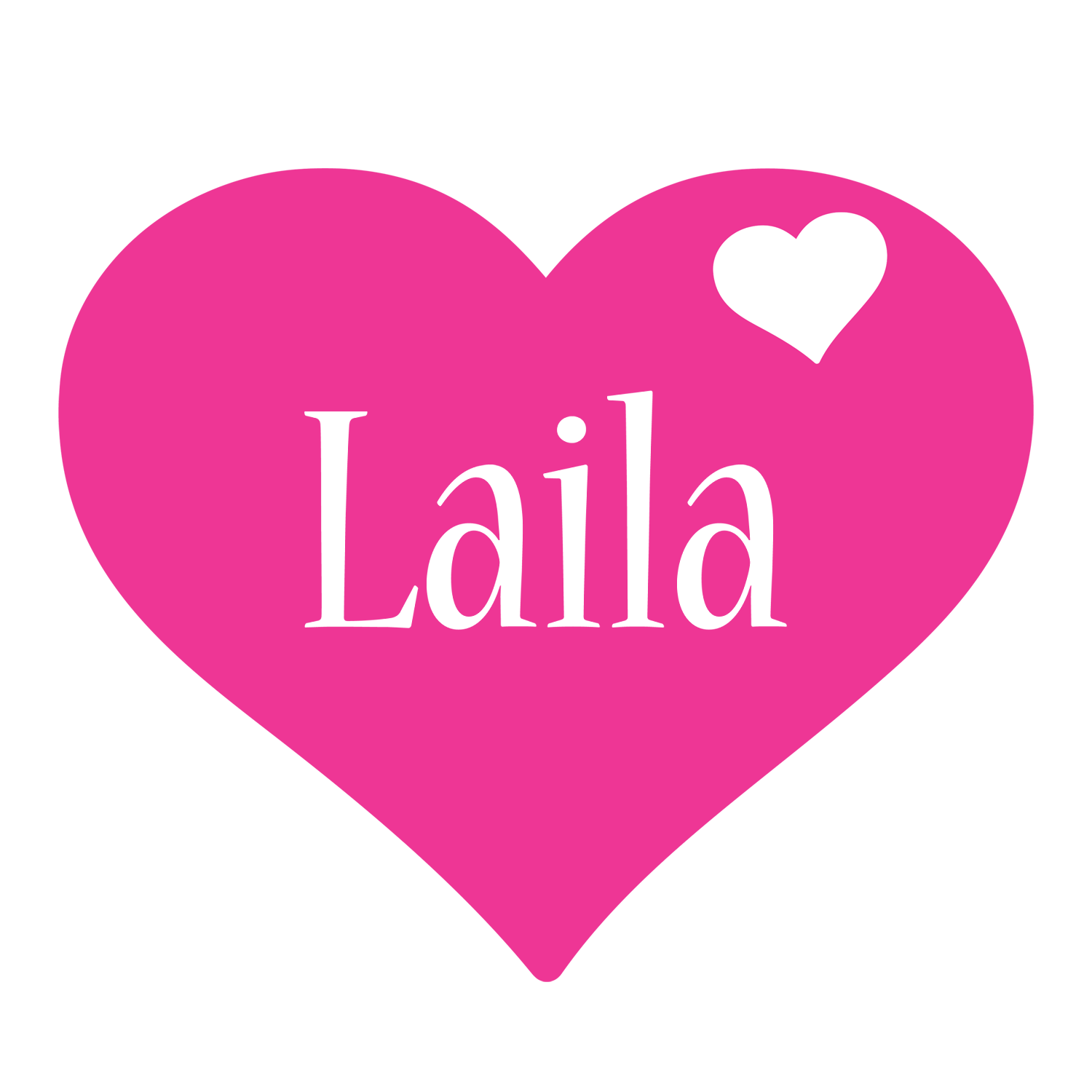
Cute Girly Font Generator
No download or any special software is required. Girly love script is modern handwritten calligraphy typeface with dancing up and down the baseline.
Cute girly font generator. The last step is to try out your favorites in the girly tattoo font generator. We have 48 free cute girly handwriting fonts to offer for direct downloading 1001 fonts is your favorite site for free fonts since 2001. Kawaii is a japanese term which basically means something cute.
Click to find the best 936 free fonts in the cute girly style. Cute girly fonts are characterized by big and stylized scripts that have a distinct appeal in case of teenage girls. This font is such a bubbly, fun script.
Just enter your letters and words in the box below, choose your girly letter font and color / size options, and click on the generate girly letter button below. Simply type or copy the normal text into the blank text field. The text generator section features simple tools that let you create graphics with fonts of different styles as well as various text effects.
The girly text maker is a free online letter generator program so you can create your own cool girly letters with your custom text. Girly fonts are famous for its sweet look. Brandcrowd has hundreds of girly logos that you can customized in just a few clicks.
A there is nothing like girly or boyish in fonts but cute fonts are one of the favorite fonts among the girls. The most beautiful and pretty fonts from our catalog, perfect for any occasion or event. How to have girly handwriting.
This cute fonts generator can change the alphabets you put to some of those different shaped and styled ones. The font collection section is the place where you can browse, filter, custom. Ready to personalize and share in facebook and twitter.
The cute, kawaii and dolliecrave symbols generator is an ideal website for people who love to play around and. Girly fonts are famous for its sweet look. It is a free online letter generator program so you can create your own cool girly letters with your custom text.
Cute fonts are also known as kawaii fonts. Browse the library of professionally designed girly logos. I promise that you have something you like, try it.
Cute letters designed by german type designer harald geisler is a hand drawn font family available in two styles, cute letters hearted and the cute letters heartless. You can try the girly logo maker for free! The cute fonts generator helps users break away from the generic font choices out there and choose a font that would better be able to convey themselves.
Beautiful & cute font generator. 1001 free fonts offers the best selection of girly fonts for windows and macintosh. And you will find cute aesthetic fonts for your writing.
So, yes this is perfect for a girl to use. We have 73 free handwritten girly handwriting fonts to offer for direct downloading 1001 fonts is your favorite site for free fonts since 2001. Find a design you love and change the colors, font and layout.
The text generator section features simple tools that let you create graphics with fonts of different styles as well as various text effects; Cute girly fonts are characterized by big and stylized scripts that have a distinct appeal in the case of teenage girls. Rindy is a girly handwritten font that’s perfect for subtitle, signature or branding.